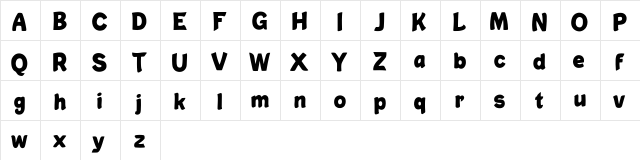
Christopher Done Font Preview
Christopher Done Christopher Done
Christopher Done Font Details
| Style | Christopher Done |
| Foundry | Cundrawan (cove703) |
| Designer | Cundrawan (cove703) |
Design Context for Christopher Done Typeface
Christopher Done offers clean, dependable letterforms without strong stylistic allegiance, making it a practical choice for designers who need flexibility.